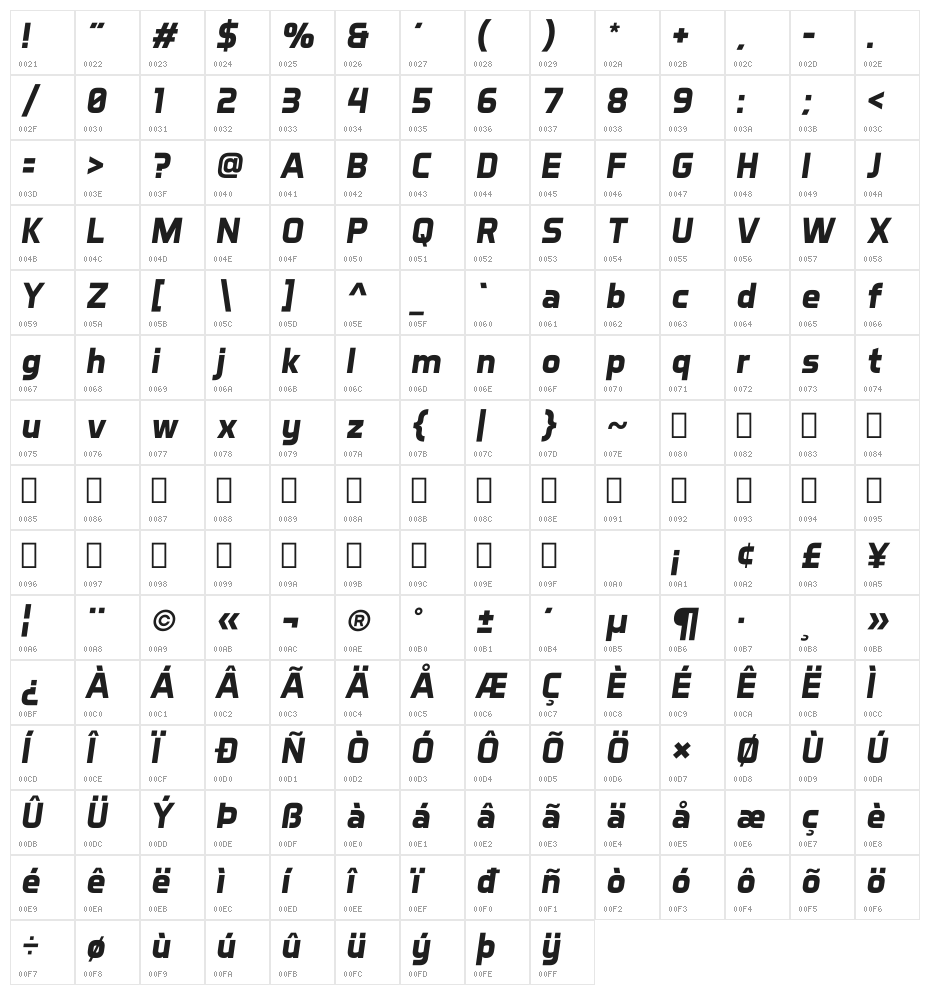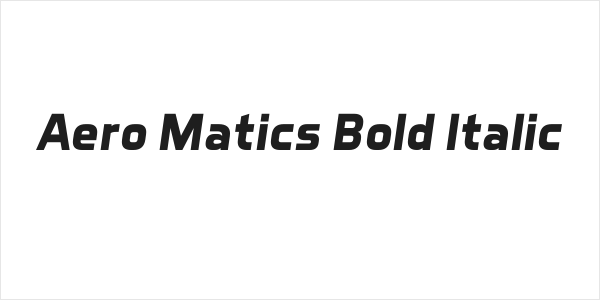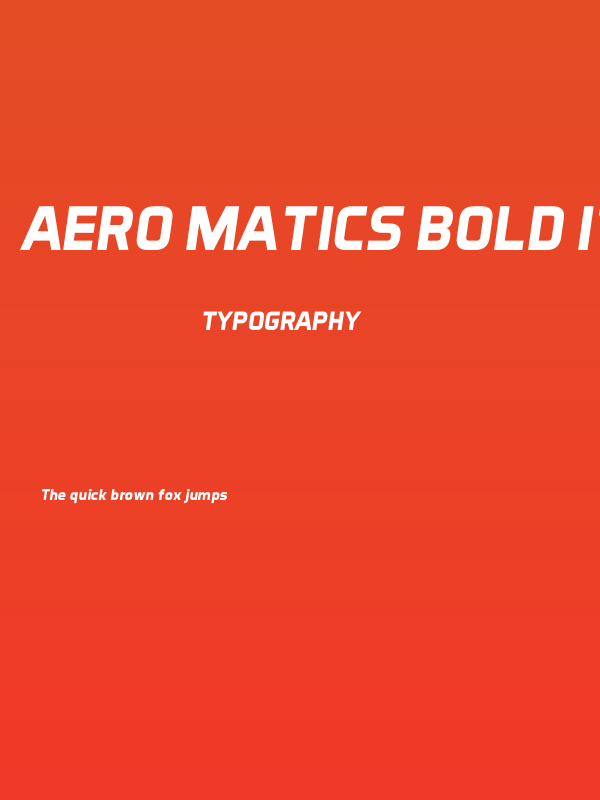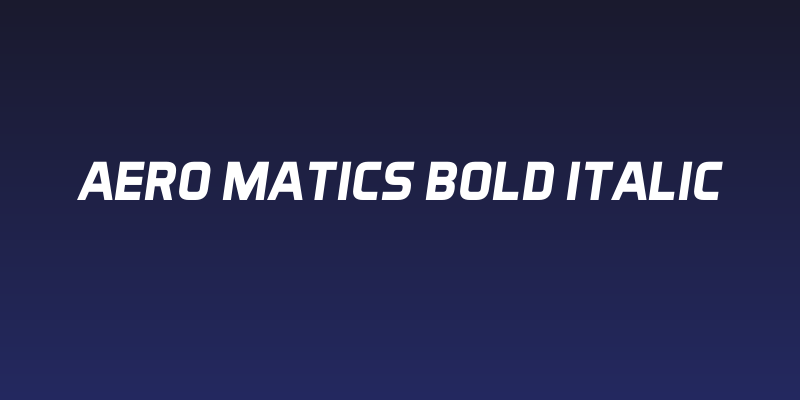
Aero Matics Bold Italic Font
Aero Matics Bold Italic Description
This font features a bold and italicized style, characterized by its strong, dynamic presence. The letters are slightly slanted, giving a sense of motion and speed. The strokes are thick and consistent, providing a robust and impactful appearance. The uppercase and lowercase letters maintain a uniform width, contributing to a cohesive look. The numerals are clear and bold, ensuring readability. Special characters are designed with the same boldness, making them stand out effectively. This font is suitable for projects that require a modern and energetic feel.
| Use Case | Headlines, Logos, Advertising |
| Proposed Projects | Ideal for branding, sports team logos, advertising campaigns, and dynamic headlines. |